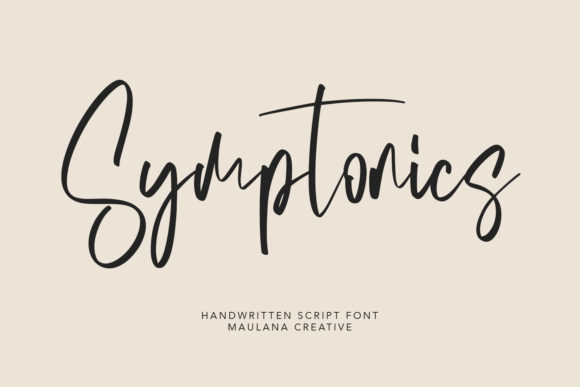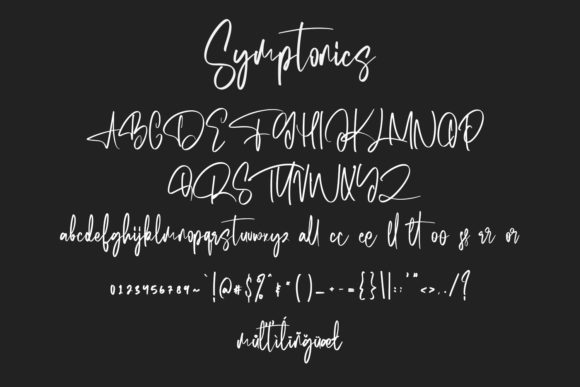
Symptonics Font
About Symptonics Font
Symptonics is a unique handwritten font. It looks rustic and natural and is perfectly suited for signature, stationery, logo, typography quotes, magazine, flyer, clothing, branding, packaging design and more.